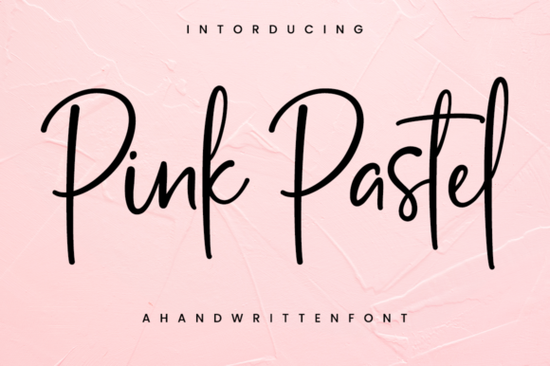
If you’ve been searching for a script font that feels soft, sweet, and just a little bit dreamy, the Pink Pastel Font might be exactly what your next project needs. It’s not loud or flashy it’s the kind of typeface that adds charm without stealing the spotlight. Whether you’re designing wedding invitations, branding a small bakery, or personalizing printable gifts, this font brings a gentle elegance that works beautifully in both digital and print formats.
What makes it stand out is how naturally it flows each letter connects with grace, making it feel handwritten but still polished enough for professional use. You’ll find it especially useful if you’re working on projects that need to feel personal, thoughtful, or feminine. Think baby shower invites, boutique packaging, or even custom quote prints for Etsy shops.
Who should consider using this font?
It’s perfect for:
- Print-on-demand sellers Pair it with floral graphics or watercolor backgrounds for bestsellers like mugs, tote bags, or journals.
- Small business owners Use it for logos, social media quotes, or product labels when you want to convey warmth and approachability.
- Crafters and hobbyists Great for vinyl cutting, embroidery digitizing, or hand-lettered-style SVGs.
- Designers A solid go-to for mockups that require a touch of softness without looking childish.
If you’ve liked fonts like I Heart You or Randy Sofia in the past, you’ll probably feel right at home with Pink Pastel. It shares that same friendly, flowing energy just with a slightly more refined edge.
How does it pair with other fonts or design elements?
This font plays nicely with clean sans-serifs try pairing it with something minimal like Montserrat or Lato for contrast. Avoid using it with other overly decorative scripts; it shines brightest when given space to breathe.
Color-wise, stick to soft neutrals or muted pastels. Dusty rose, sage green, or creamy ivory backgrounds let the font’s personality come through without visual clutter. If you’re layering text over images, make sure there’s enough contrast so the delicate strokes don’t disappear.
You might also explore similar vibes with fonts like Child for more playful projects, or Outside if you need something with a looser, more casual rhythm. And if alignment and spacing are important for your layout, check out tips in our guide on script font alignment it’ll help you avoid common pitfalls when working with connected letterforms.
Any limitations I should know about?
Because it’s a script font with fine, thin strokes, avoid using it at very small sizes below 12pt in print or tiny buttons on websites. The details tend to blur or vanish. Also, while it’s gorgeous for headlines and short phrases, it’s not ideal for long paragraphs. Save it for titles, names, taglines, or decorative accents.
If accessibility is a priority (like for web or public signage), consider using it as an accent alongside a more legible body font. That way, you keep the charm without sacrificing readability.
Quick checklist before you start designing:
- ✅ Test readability Zoom out or print a sample to make sure the thin lines hold up.
- ✅ Pair thoughtfully Combine with simple fonts and ample white space.
- ✅ Use alternates If included, mix in swashes or alternate characters for variety.
- ✅ Avoid overcrowding Let the letters flow naturally; don’t force tight kerning.
Whether you’re refreshing your design toolkit or hunting for that “just right” font for a client project, Pink Pastel offers a lovely balance of delicacy and usability. It’s the kind of font you’ll reach for again and again not because it shouts, but because it whispers just the right thing.